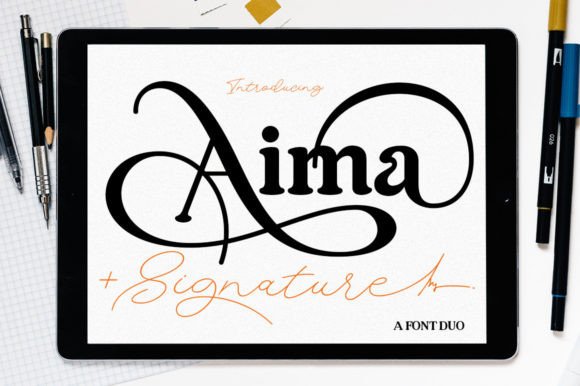
Discover the Delightful Aima Font Duo: Elevate Your Designs with a Relaxed and Energetic Vibe
Have you ever been in the middle of a design project, and suddenly, you just can’t seem to find the right font? I recall a particularly frustrating experience while working on a wedding stationery project. My client wanted a font that was both elegant and playful, but I just couldn’t seem to find the perfect fit. That’s when I stumbled upon the Aima Font Duo, and it completely transformed my design. In this article, I’ll share my experience with this delightful font duo and explore its features, uses, and alternatives.
A Personal Encounter with Aima Font
As I began to experiment with Aima Font, I was immediately drawn to its unique, playful baseline and relaxed vibe. The Aima Font Duo consists of two fonts: Aima Display and Aima Signature. Aima Display is perfect for headlines, titles, and other display purposes, while Aima Signature is ideal for body text, quotes, and other creative projects. I was excited to see how these fonts would work together to bring my design to life.
An Honest Review of Aima Font
What I Love About Aima Font ✨
- ✅ Unique and playful baseline that adds a touch of personality to any design
- ✅ Extensive character set, including numerals, punctuation, and stylistic alternates
- ✅ PUA encoded characters for easy access to glyphs and special characters
- ⚠️ Some users may find the font too playful or casual for certain projects
- ⚠️ Limited availability of font weights and styles
The Backstory of Aima Font
Aima Font was designed with the intention of creating a unique, playful font that captures the essence of a relaxed and energetic vibe. The designer aimed to create a font that would add a touch of personality to any design, while still being highly legible and versatile. The result is a delightful font duo that is perfect for a wide range of creative projects.